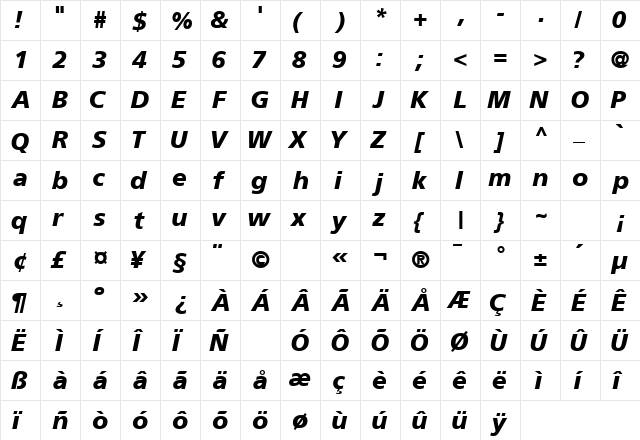
PalmaBlackSSK Italic
Design Context for PalmaBlackSSK Typeface
PalmaBlackSSK is a composed and adaptable typeface that performs quietly and consistently across a wide range of design contexts. Its italic angle brings a sense of urgency and motion to the letterforms.
Pro Tip: Try PalmaBlackSSK for annotation and caption copy alongside an upright companion — the contrast in angle creates a dynamic but ordered typographic system.